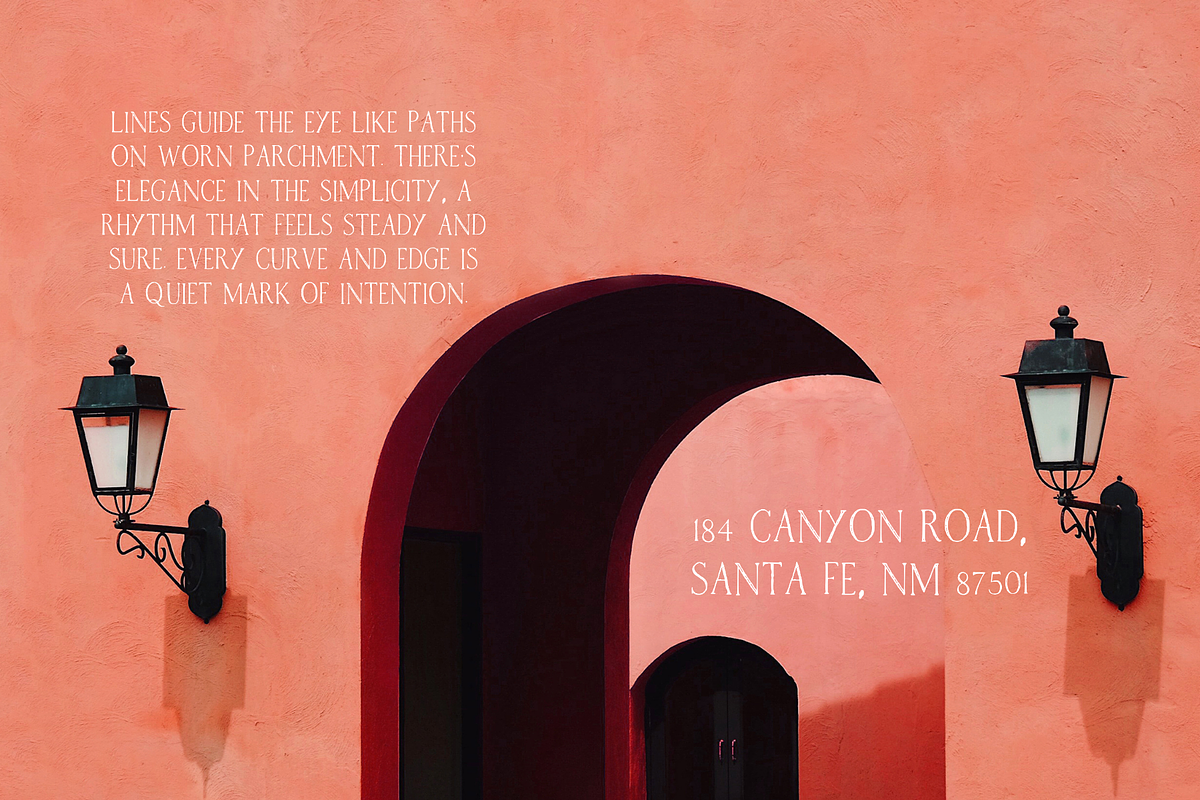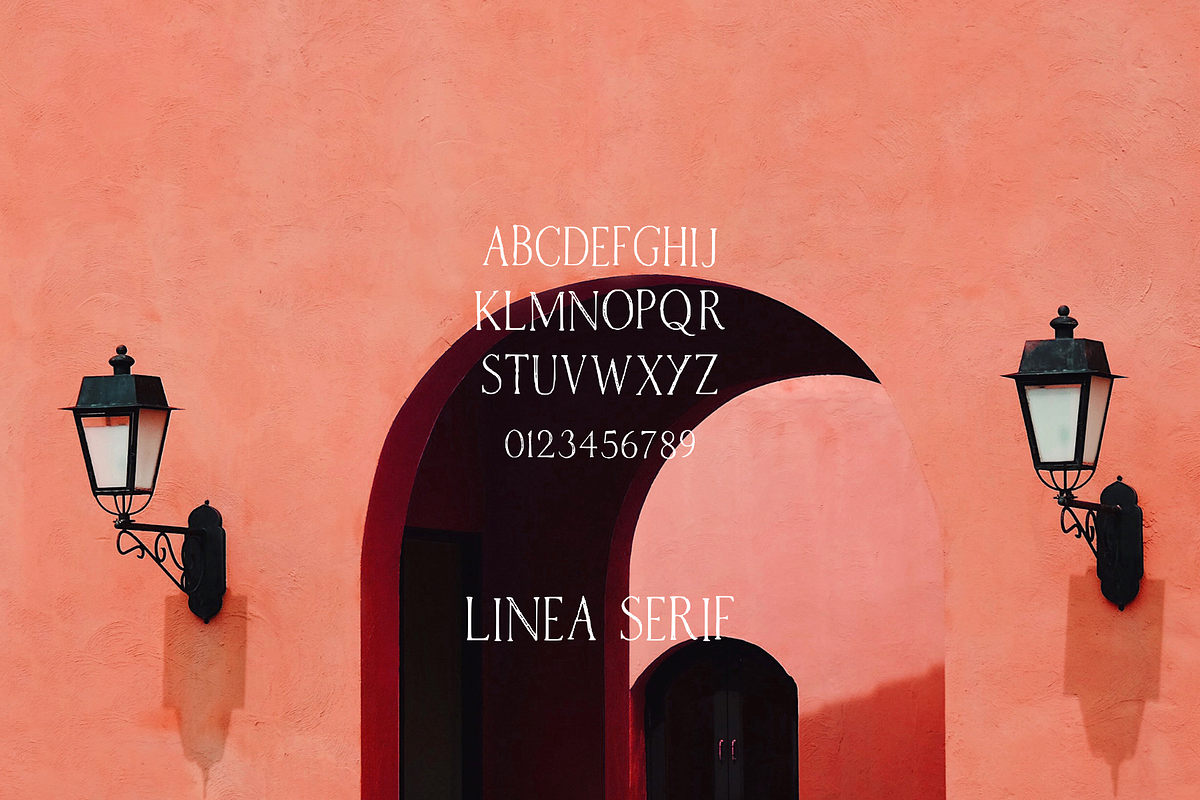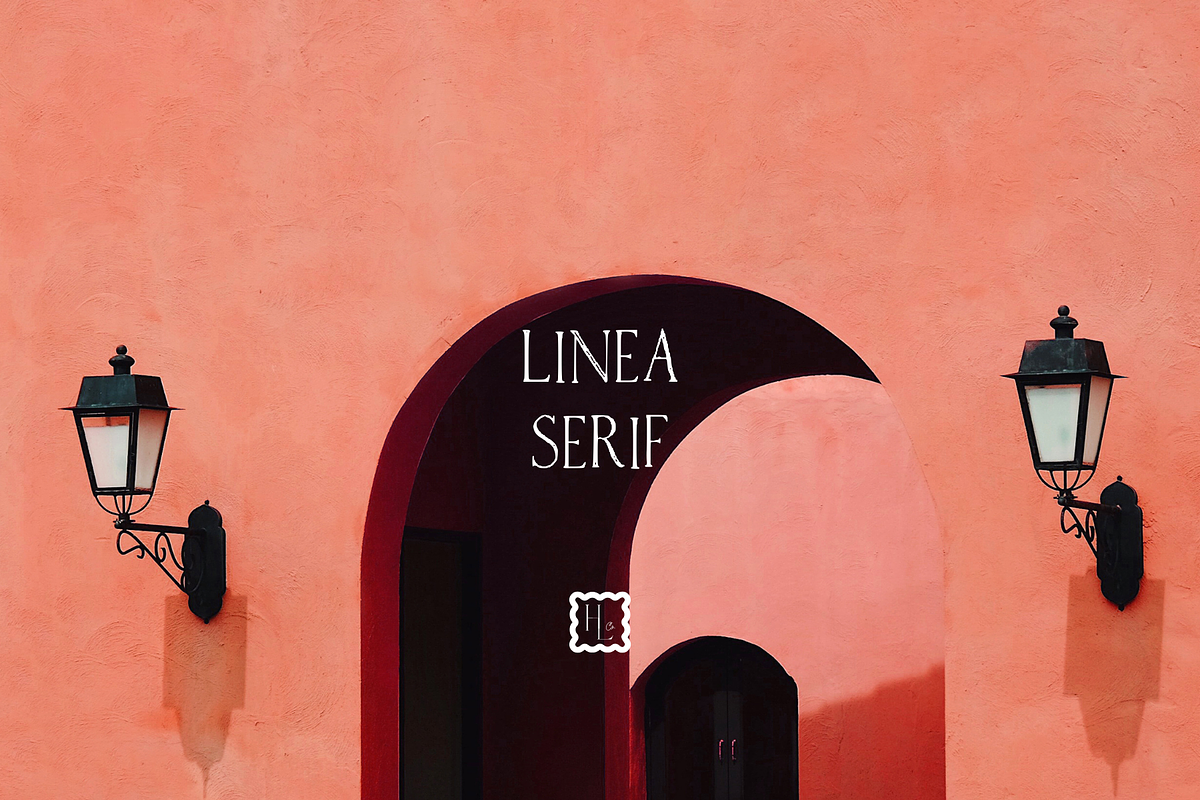
Linea Serif
Linea Serif is a refined, hand-drawn typeface with a subtle outline that adds nostalgic character. Featuring A–Z, numbers, and simple symbols, it’s versatile for branding, stationery, and digital design. Includes both TTF and OTF file formats for easy use.